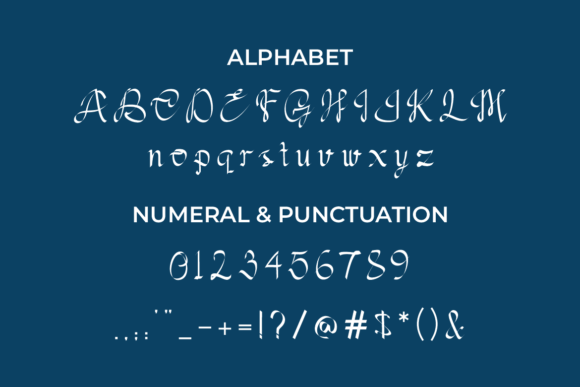
The Gilstina Font: A Fun and Quirky Handwritten Delight
An Honest Review of Gilstina
So, what makes Gilstina special? Here are a few things I love:
- ✨ Unique, handwritten feel that’s perfect for crafty projects
- 💃 Supports OpenType features, glyphs, and stylistic alternates for added customization
- 🎨 Versatile and suitable for various design applications, from invitations to social media graphics
While Gilstina is an excellent font, it’s not without its quirks. Here are a few things to keep in mind:
- 🤔 Limited character set compared to some other fonts
- ⚠️ May not be the best choice for body text or lengthy content
The Story Behind Gilstina
Gilstina was designed with the intention of capturing the carefree spirit of handmade crafts. Its creator aimed to craft a font that would be both fun and functional, perfect for a wide range of creative projects. While the exact backstory of Gilstina might be unclear, its playful personality shines through in every letter.
| Font Name | Gilstina Font |
| Author | maikofarazhatta |
| What type of projects is Gilstina best suited for? | Gilstina is perfect for crafty projects, invitations, social media graphics, and any design that requires a playful, handwritten touch. |
| Is Gilstina suitable for body text? | While Gilstina is highly legible, it’s generally better suited for headings, titles, or short paragraphs. For longer content, a more traditional font might be more suitable. |